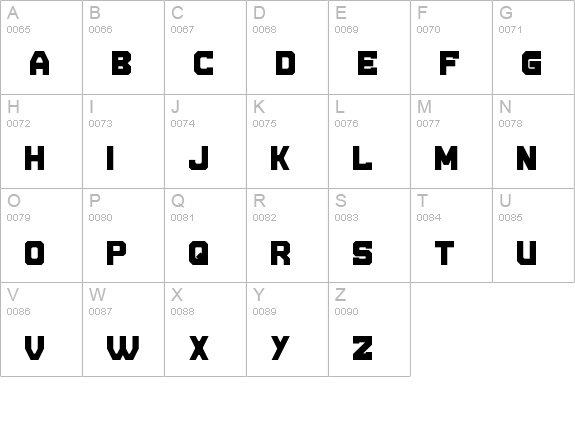
WLM Carton Regular Font Details
WLM Carton Regular is the standard, neutral variant in the WLM typeface family \xE2\x80\x94 well suited to general body text, paragraphs, and standard typographic work.
Introducing WLM Carton Regular font, a versatile and dynamic typeface that will elevate your designs to new heights. With its clean lines and modern aesthetic, this font is perfect for a wide range of creative projects. Whether you're designing a logo, crafting a poster, or creating a stunning website, WLM Carton Regular font will add a touch of sophistication and professionalism to your work. One of the best features of WLM Carton Regular font is that it is free to download. That's right, you can access this amazing font without spending a dime. Simply head over to FontsMarket.com and start exploring the endless possibilities that WLM Carton Regular font has to offer. With just a few clicks, you can have this incredible font at your fingertips, ready to bring your design visions to life. Designed with precision and attention to detail, WLM Carton Regular font offers a wide range of characters and glyphs, allowing you to create unique and eye-catching designs. Its versatility makes it suitable for various design projects, from branding and packaging to social media graphics and more. The sleek and modern look of WLM Carton Regular font is sure to captivate your audience and make a lasting impression. Its legibility ensures that your message will be clear and easily understood, while its subtle elegance adds a touch of sophistication to any project. So why wait? Unlock your creativity and take your designs to the next level with WLM Carton Regular font. Download it for free at FontsMarket.com and start creating stunning visuals that will leave a lasting impact. Experience the power of this remarkable font and see your designs come to life like never before.